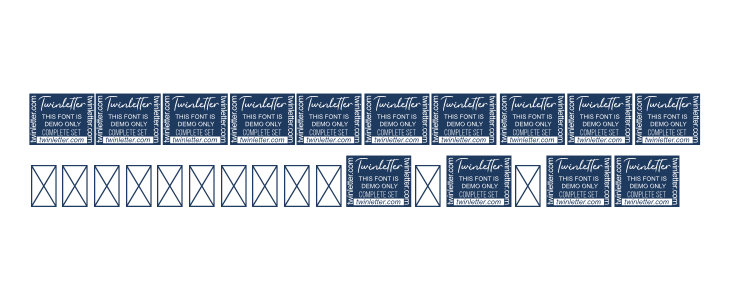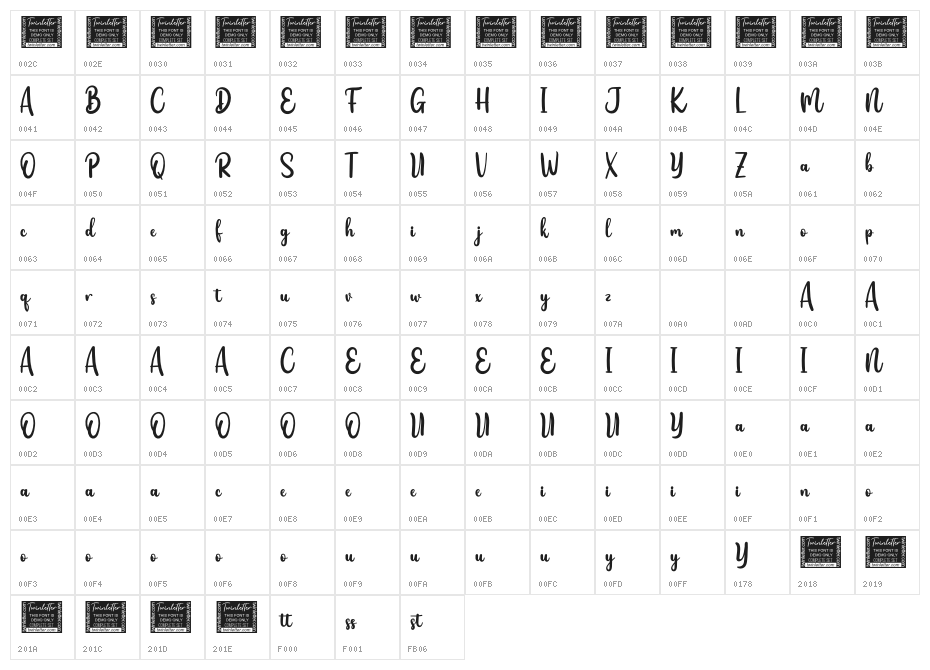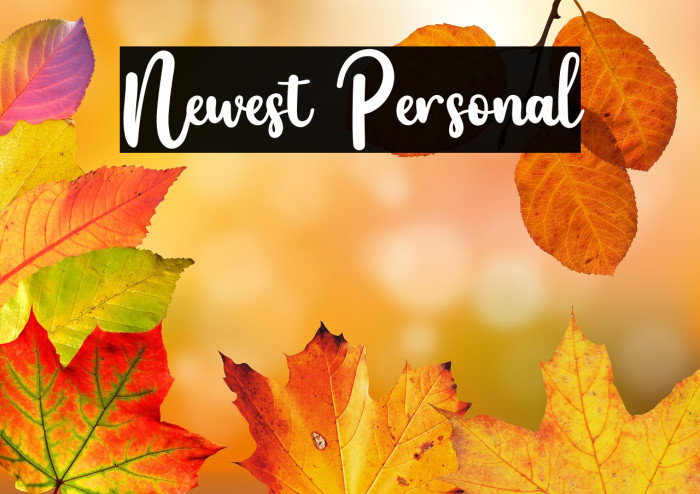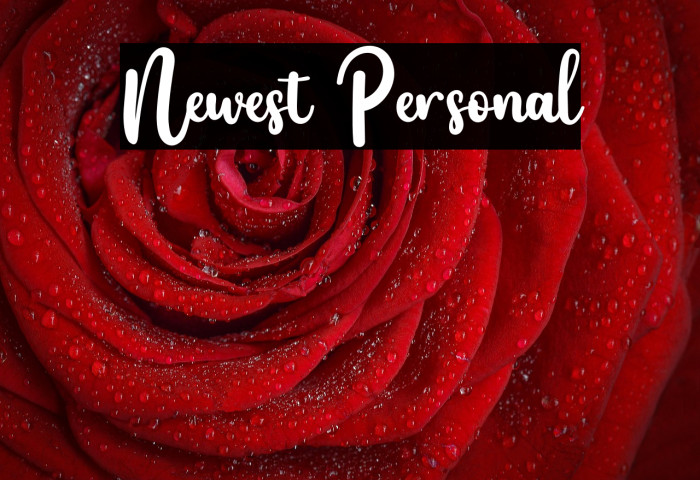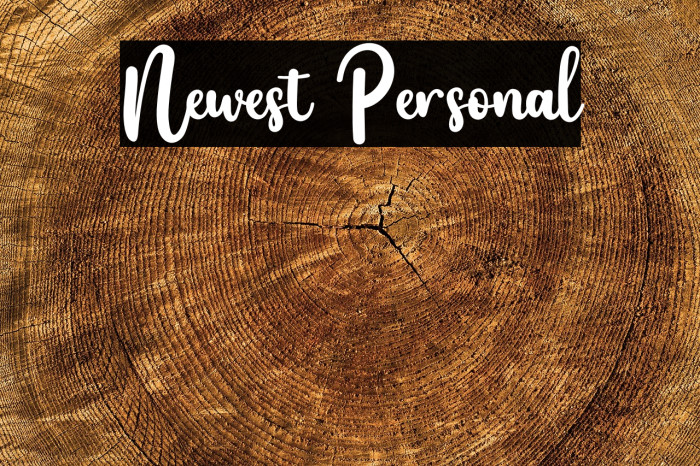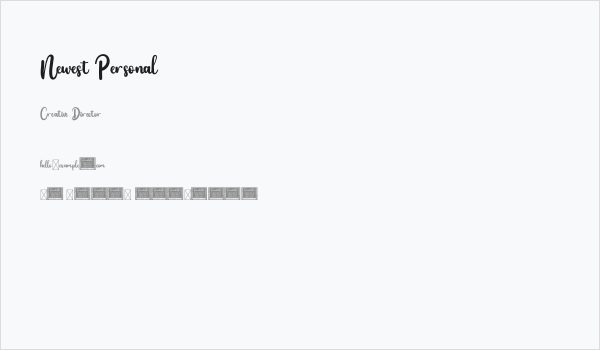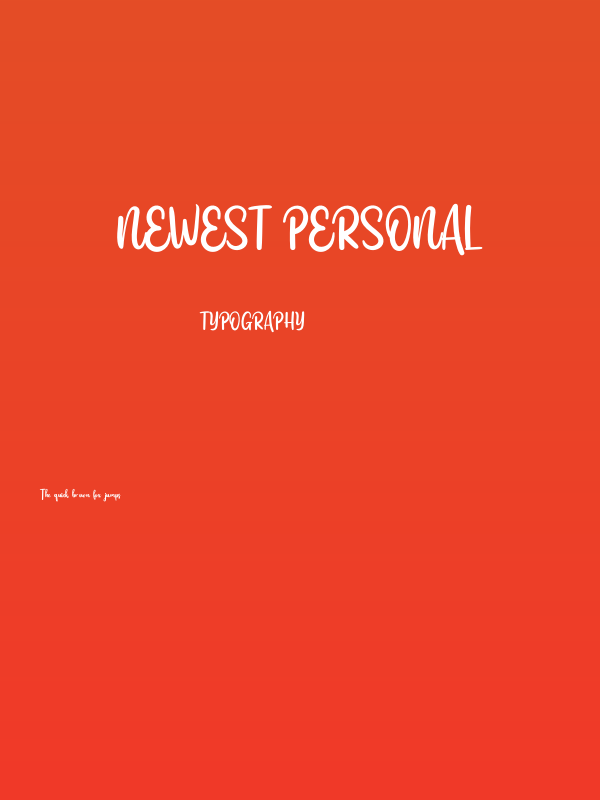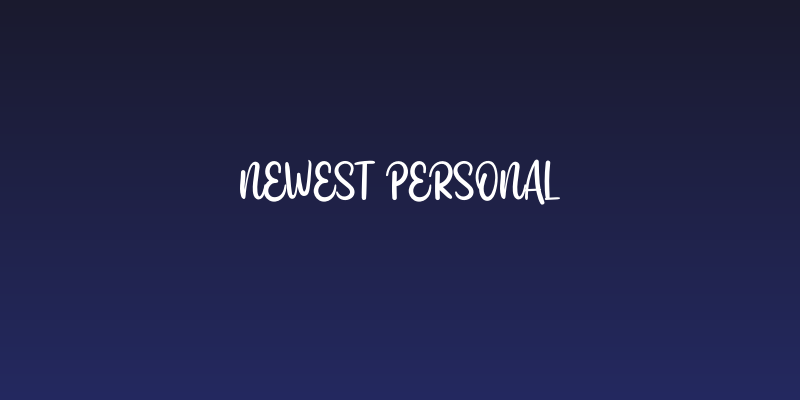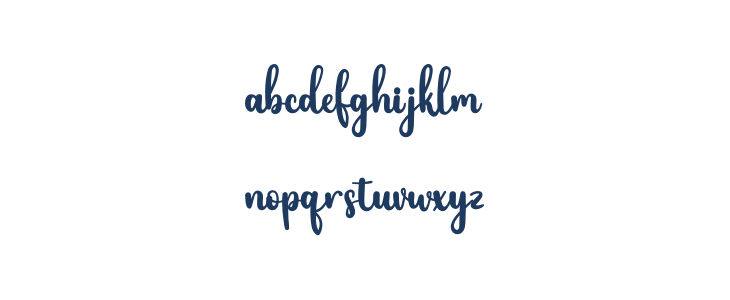
Newest Personal Font
Newest Personal Description
This font features a playful and dynamic script style with a handwritten appearance. The uppercase letters are bold and slightly slanted, giving them a lively and energetic feel. The lowercase letters maintain a consistent flow, with smooth curves and a casual elegance. The font's overall design is modern and approachable, making it suitable for a variety of creative projects. It includes a full set of uppercase and lowercase letters, numbers, and a selection of special characters. The characters are well-spaced, ensuring readability while maintaining a cohesive look.